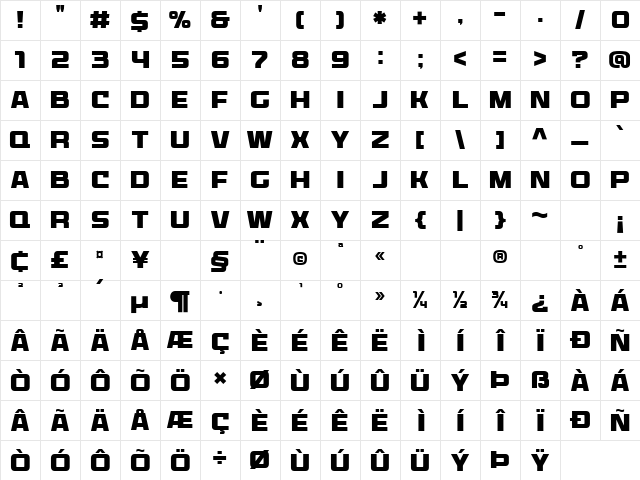
Microsport Bold Free Font
Microsport Bold
Foundry: Namara Creative Studio
Designer: Toni Setiawan
Design Context for Microsport
Microsport brings high-energy athletic personality to the page - its confident, muscular forms are built for impact. Its bold stroke weight gives it real presence on the page.
Pro Tip: Use Microsport in all-caps headlines where its athletic energy can fully express itself. Pair with a solid, simple sans for supporting text.